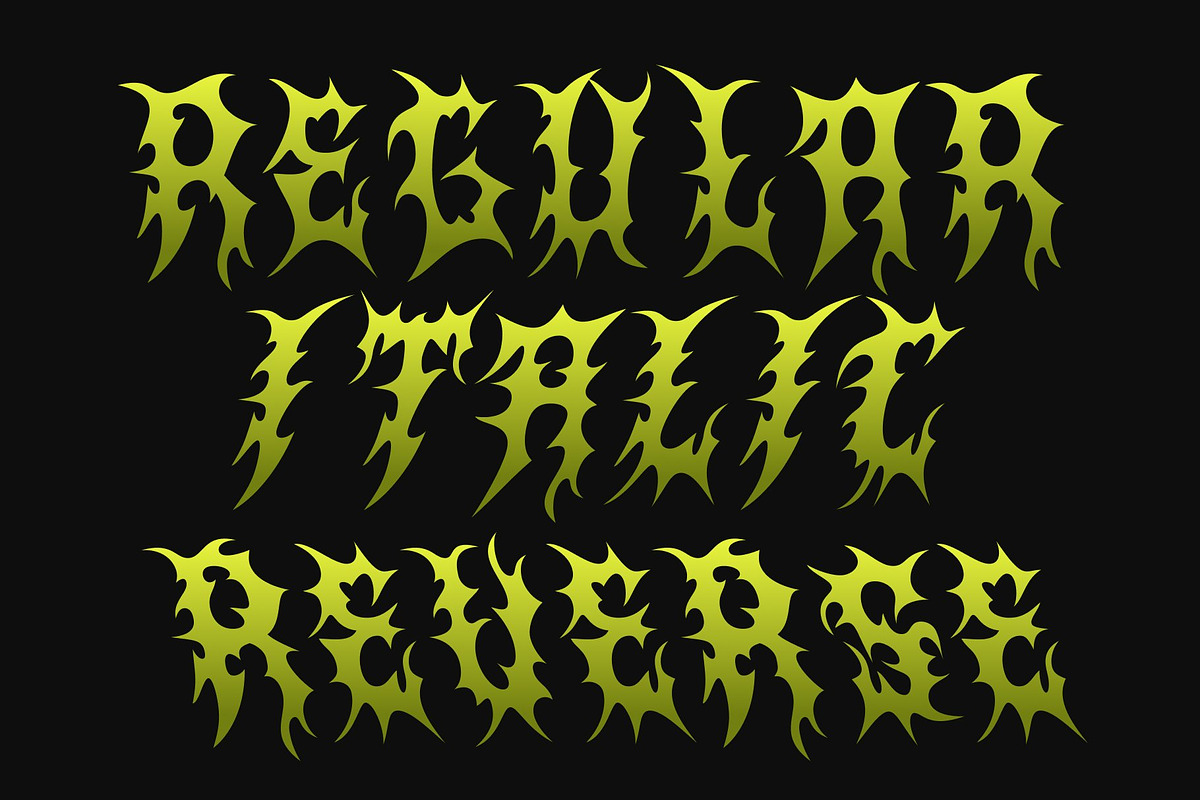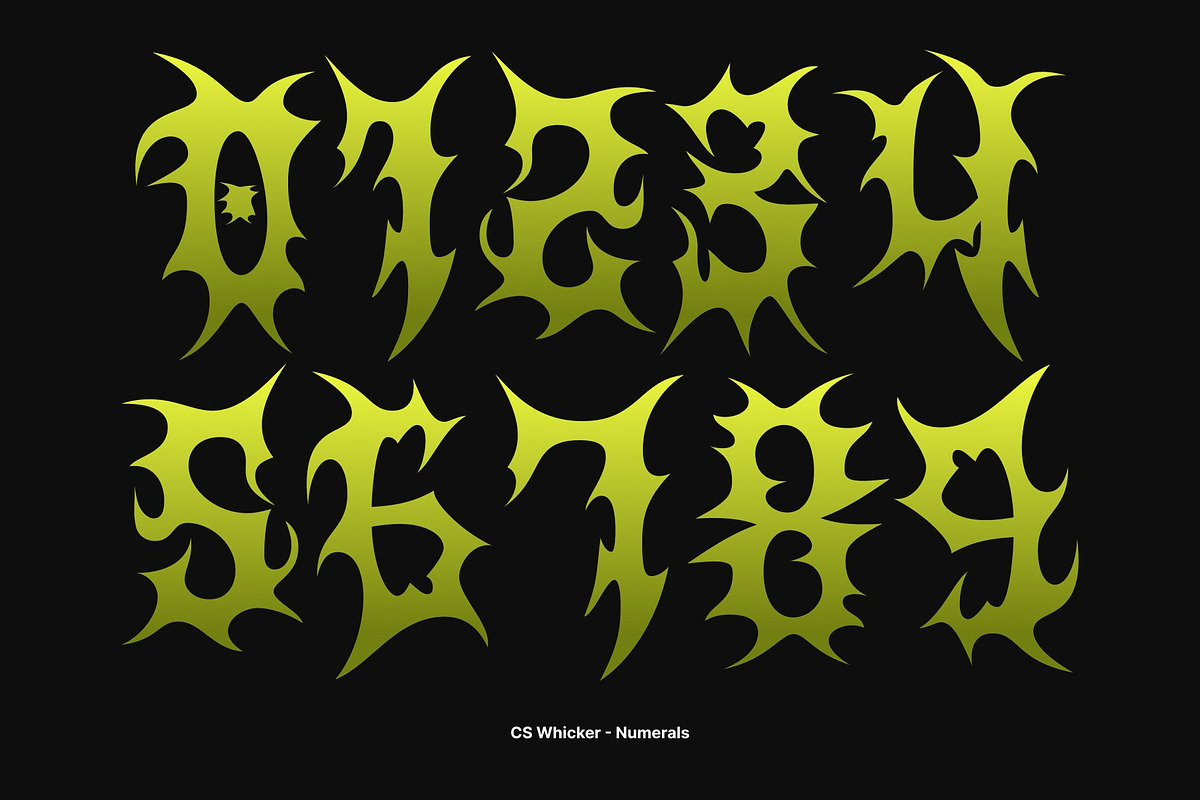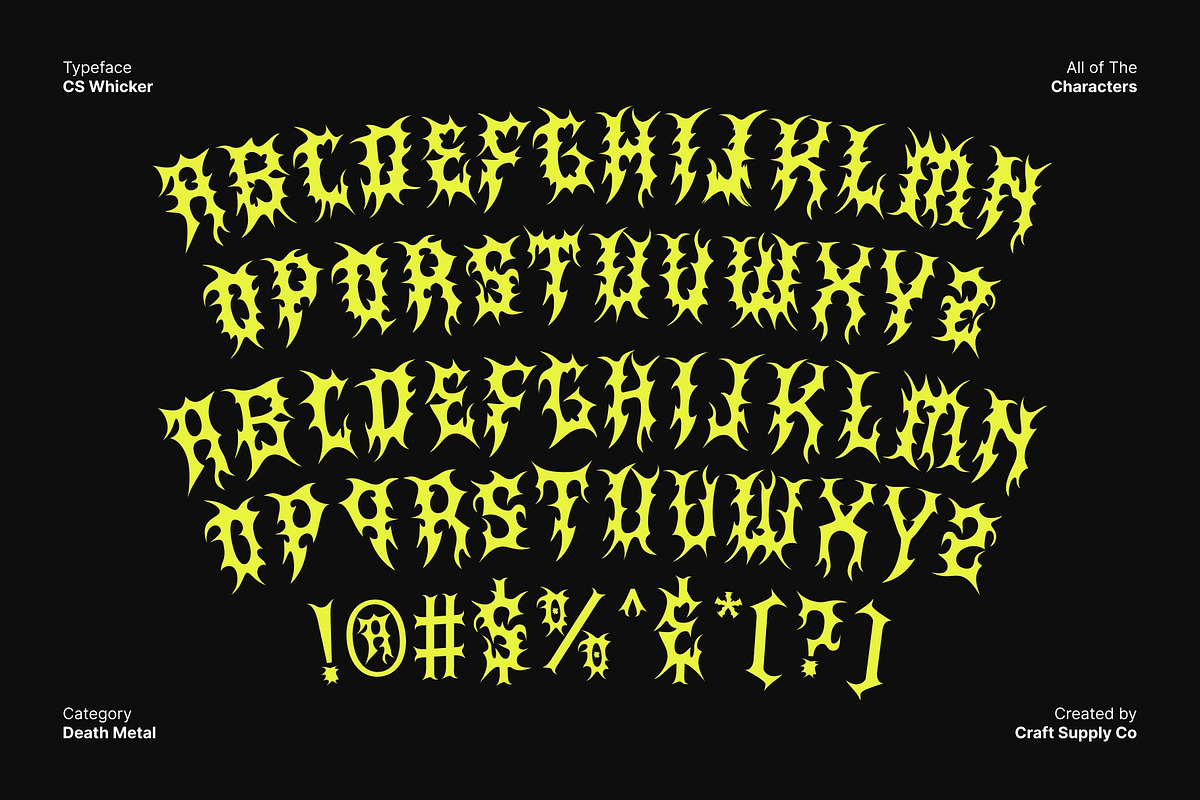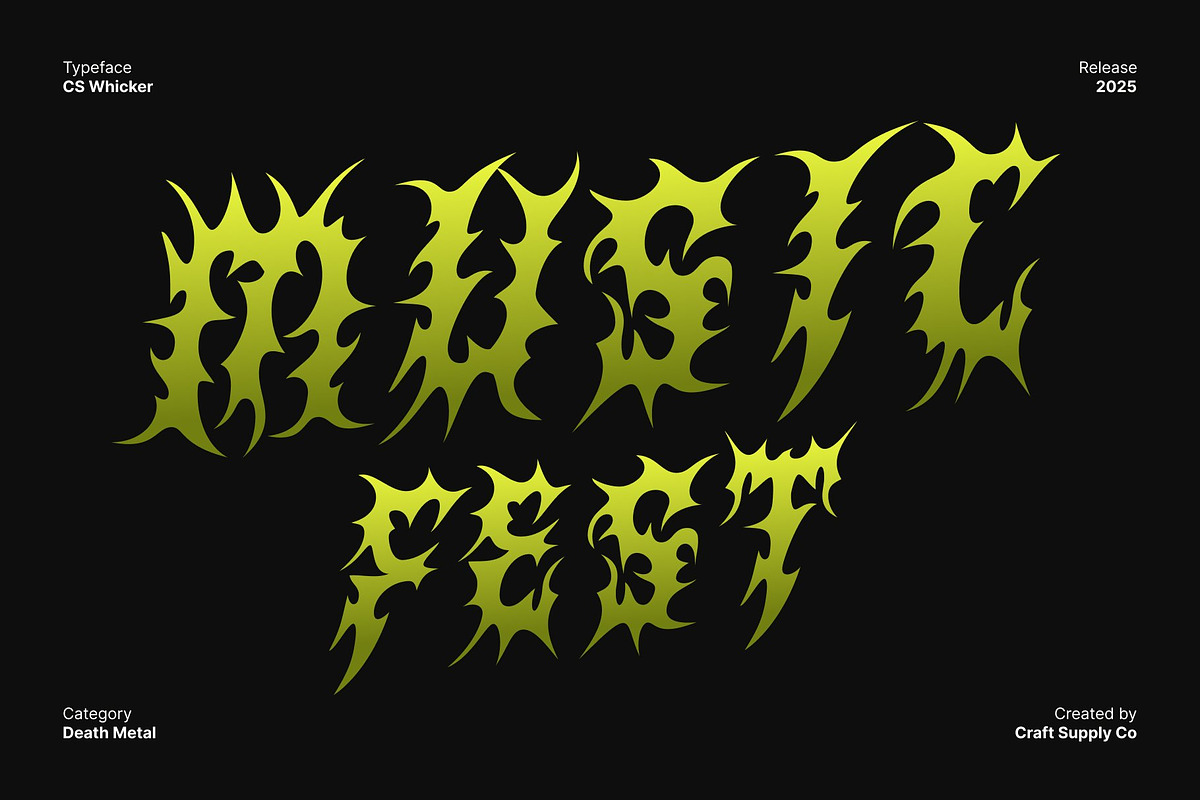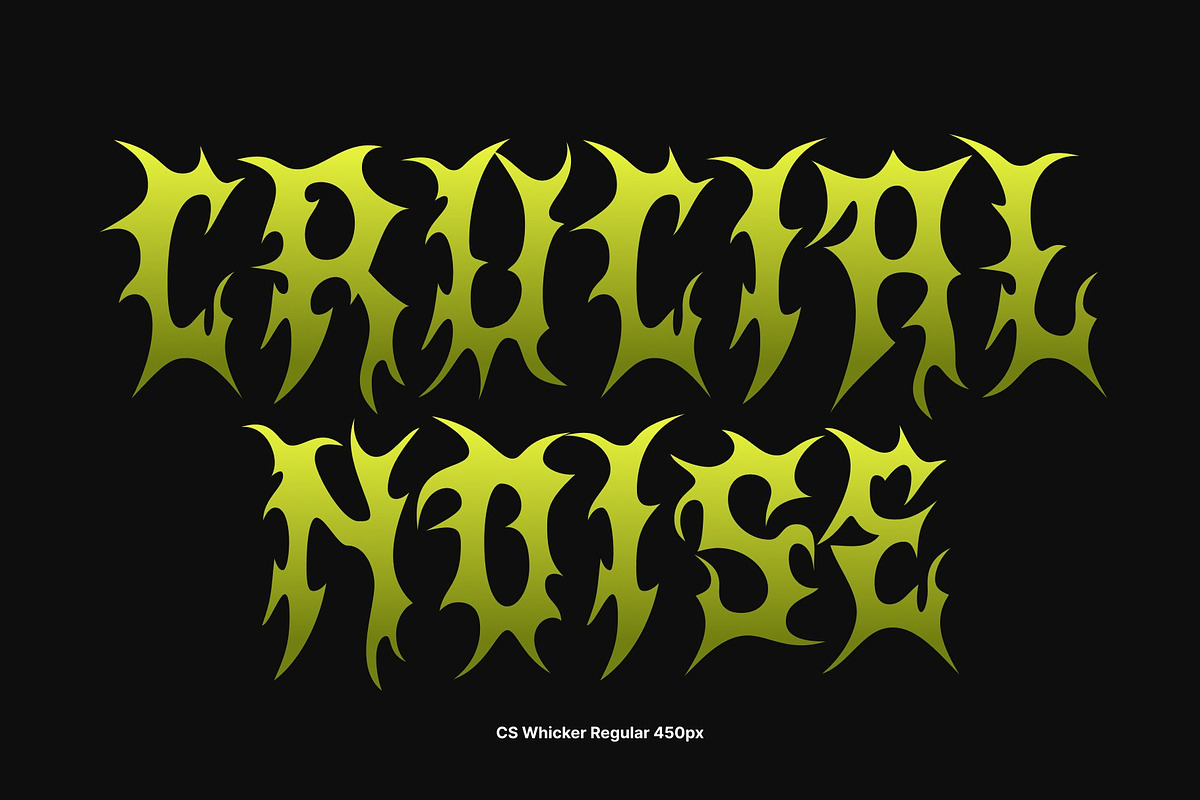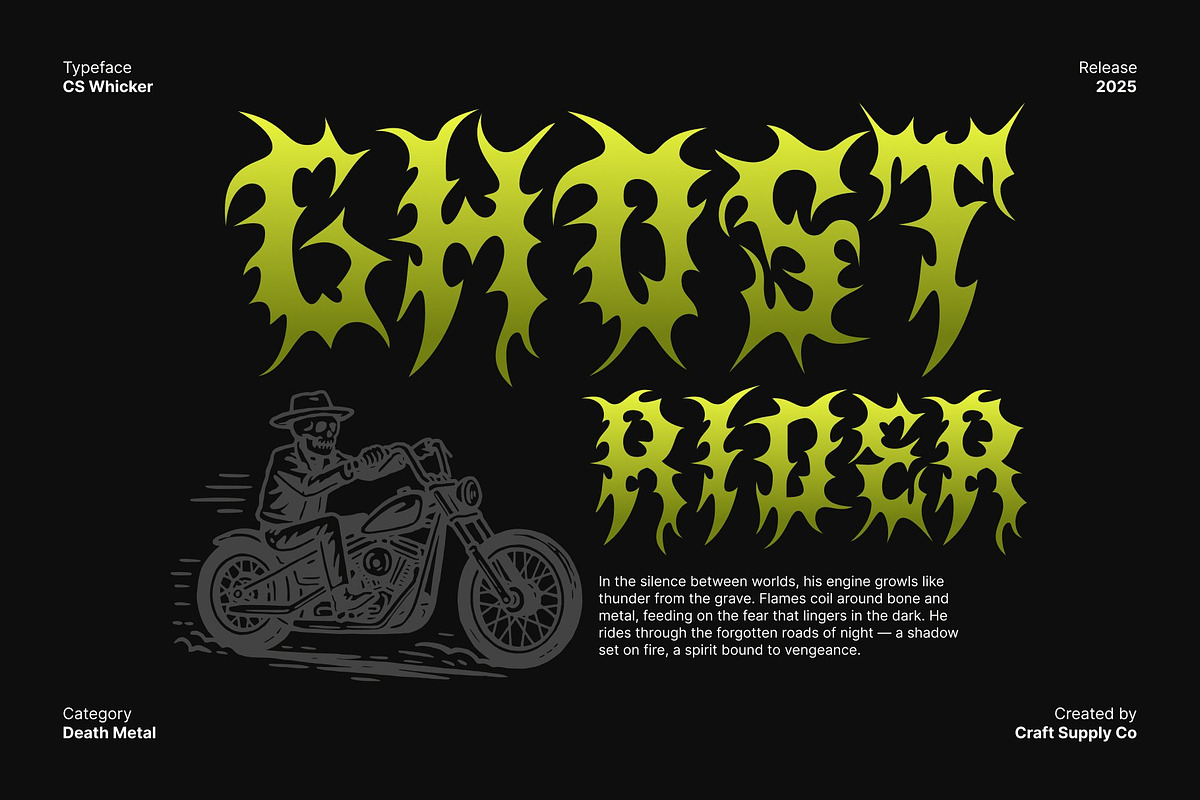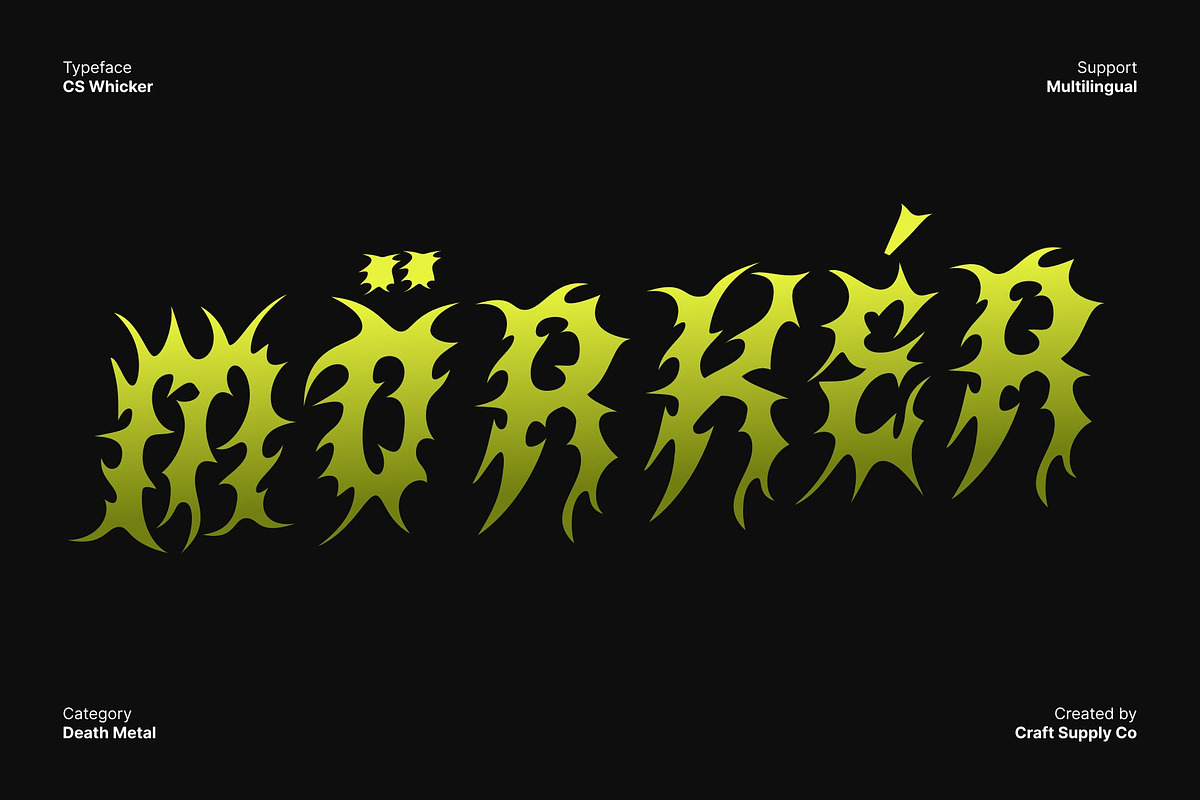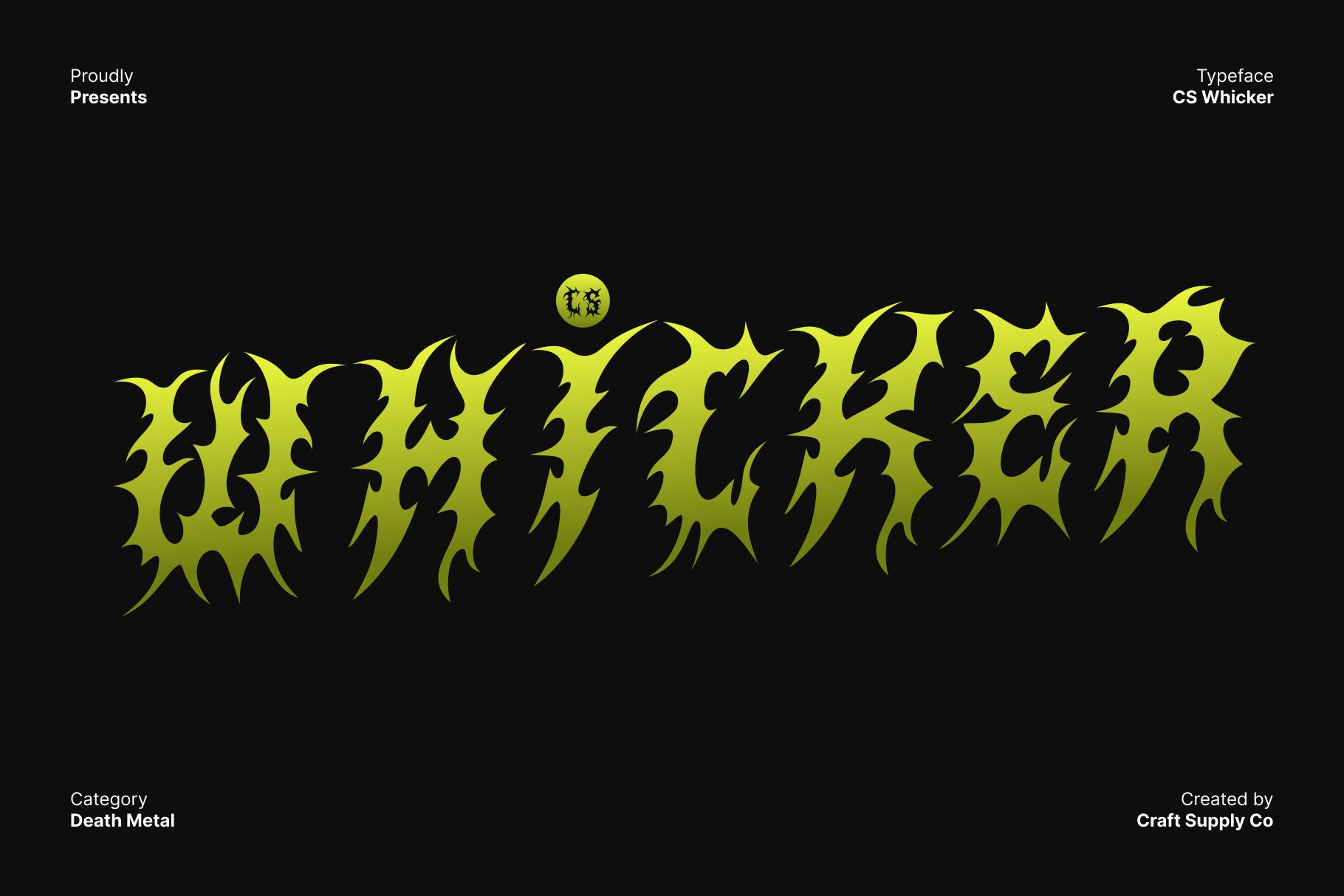
CS Whicker – Death Metal Font
CS Whicker – Death Metal Font with Raw Power
Unleash Aggression and Attitude This is a death metal font crafted to deliver fierce energy and an unmistakable rebellious edge. Its sharp, jagged letterforms slash through the visual space with intensity, while its dynamic, irregular strokes echo the raw brutality of underground metal culture. Every character is designed to provoke, challenge, and command attention, making this font the perfect visual weapon for designs that refuse to play safe.
Sharp, Jagged Forms for Maximum Impact Experience the striking precision of this font’s razor-like shapes. The extreme angles and chaotic contours create a visual rhythm that feels both aggressive and electrifying. These jagged details amplify the font’s identity, allowing your designs to radiate strength, power, and fearless expression.
Built for Extreme Visual Statements This font thrives in bold, high-impact design environments. Its loud and unapologetic style makes it an ideal choice for band logos, album covers, event posters, merchandise, apparel, and any project that demands a strong visual punch. This font elevates dark, gritty, and rebellious concepts into unforgettable visuals.
Perfect for Branding with Edge and Intensity For brands that embrace chaos, attitude, and non-conformity, this font delivers the ultimate typographic identity. It infuses every design with boldness and raw energy, helping you create visuals that resonate with metal fans and extreme subcultures. Whether you’re designing for music, fashion, or alternative media.